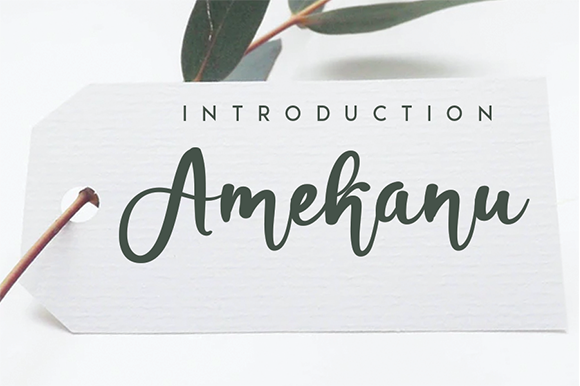
The Amekanu Font: A Timeless Addition to Your Design Arsenal
Ah, the elusive perfect font. You know, that one design project where everything comes together seamlessly, and the typography is the star of the show. For me, that moment was when I stumbled upon the Amekanu font. I was working on a branding project for a boutique craft store, and I needed a font that would convey a sense of elegance and playfulness. After hours of scouring font libraries, I finally found Amekanu, and it was love at first sight.
Amekanu is a stunning handwritten font that brings a touch of classic typography to any design project. Here’s what I’m obsessed with:
• ✨ Unique, elegant style that’s perfect for headlines and body text
• ✅ Highly versatile: works beautifully in both digital and print formats
• ✅ Excellent for designs that require a mix of maximum and minimum variations
Of course, no font is perfect, and Amekanu has a few quirks to keep in mind:
• ⚠️ Some users might find the font a tad too ornate for very small text sizes
• 🤔 Limited availability of certain OpenType features in older software
One of the standout features of Amekanu is its range of OpenType features and glyphs. These allow you to customize your text and add unique touches to your design. Some of the features you can expect to find in Amekanu include:
• Stylistic alternates: swap out characters for alternate forms
• Ligatures: combine characters for a more elegant look
• Swashes: add flair to your text with decorative swashes
The Story Behind Amekanu: Designer Inspiration
While the origins of Amekanu are shrouded in mystery, it’s clear that the font was inspired by classic typography and a passion for beautiful design. The creator of Amekanu drew inspiration from vintage fonts and manuscripts, infusing the font with a sense of timelessness and elegance.
Q: What type of designs is Amekanu best suited for?
A: Amekanu is highly versatile and can be used for a wide range of designs, including branding, packaging, web design, and more.
Q: Does Amekanu come with a range of OpenType features?
A: Yes, Amekanu includes a range of OpenType features, including stylistic alternates, ligatures, and swashes.
Q: Is Amekanu suitable for body text?
A: While Amekanu is stunning in headlines, it’s also suitable for body text, especially in larger text sizes.